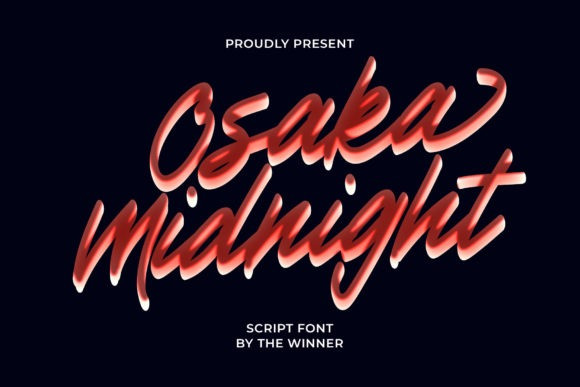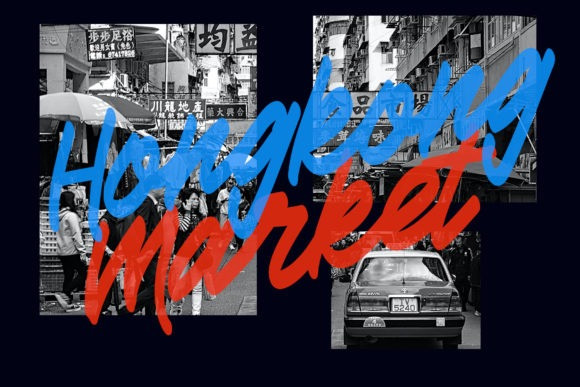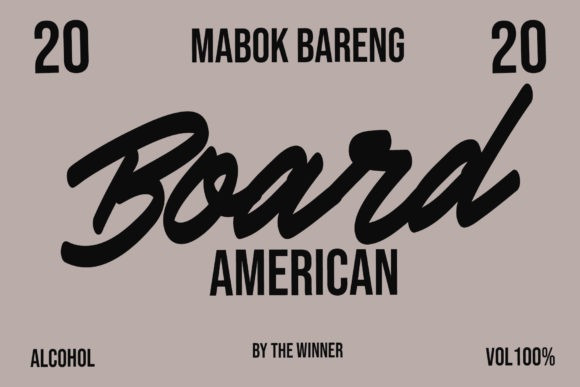
Osaka Midnight Font
Osaka Midnight is a lovely and delicate script font that exudes elegance and class. This font was particularly crafted for those who need a beautiful and refreshing look to their designs.